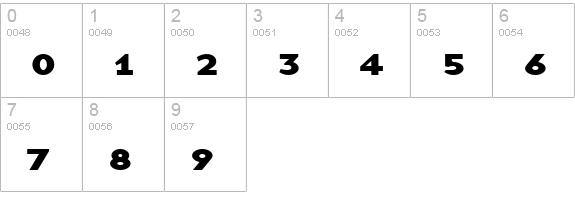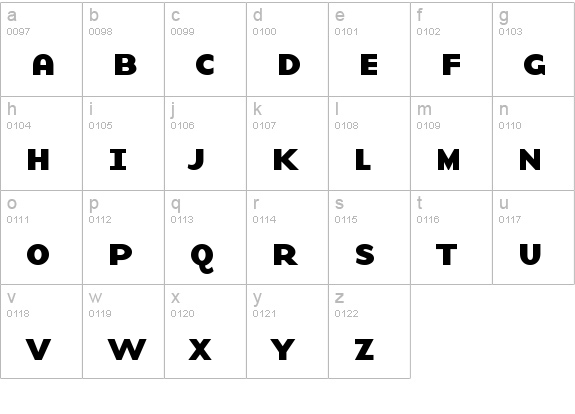
BaseNineSmallCaps Bold Font Details
BaseNineSmallCaps Bold is a strong, high-contrast variant in the BaseNineSmallCaps typeface family \xE2\x80\x94 well suited to headlines, attention-grabbing titles, and strong calls-to-action.
BaseNineSmallCaps Bold font is a modern and stylish typeface that exudes confidence and sophistication. Its bold and sleek design makes it perfect for adding emphasis to your designs. The small caps style adds a touch of elegance, making it suitable for a wide range of projects, from logos to headlines. The best part? BaseNineSmallCaps Bold font is completely free to download at FontsMarket.com. This means you can elevate your designs without breaking the bank. So why wait? Add this versatile font to your collection today and unleash your creativity!